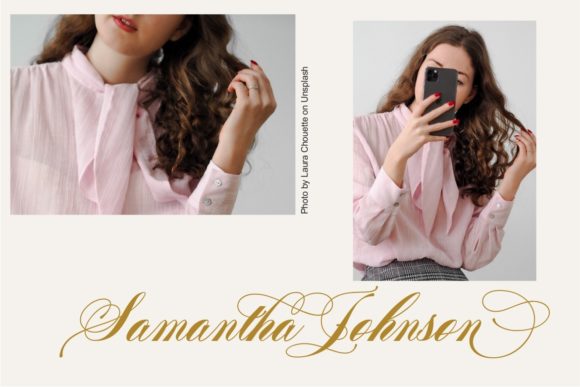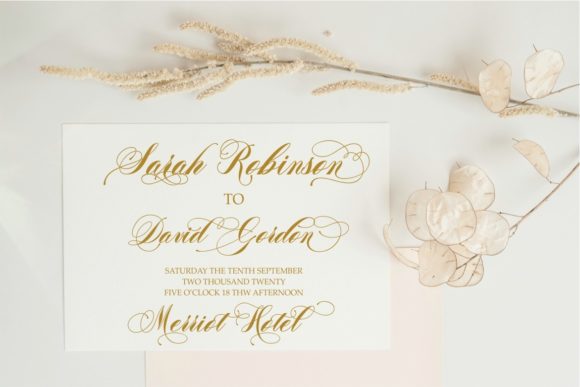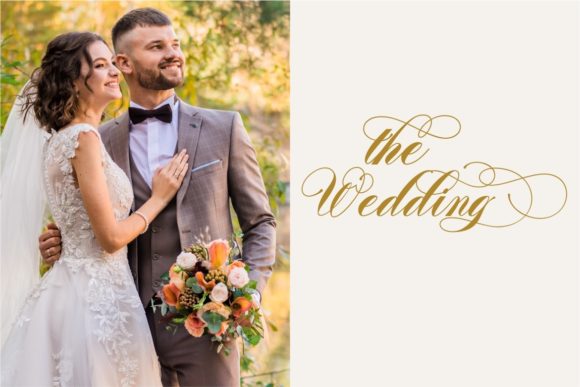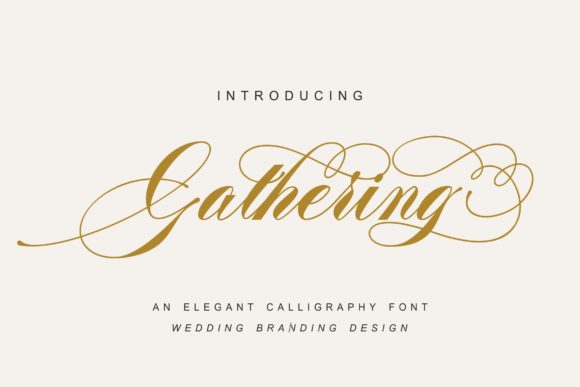
Gathering Font: Elevate Your Designs with Modern Calligraphy Elegance
Are you searching for a font that exudes elegance and sophistication for your designs? Look no further than the Gathering Font, a stunning modern calligraphy script that’s perfect for those who crave style and refinement. This beautiful font is particularly well-suited for wedding invitations, save the date cards, and feminine branding, making it a must-have for designers and crafters.
What Makes Gathering Font Special?
Gathering Font is a modern calligraphy script that boasts a unique blend of classic elegance and contemporary flair. Its flowing lines, intricate details, and beautiful ligatures make it a standout in the world of typography. Whether you’re designing wedding invitations, branding materials, or social media graphics, this font is sure to elevate your work and leave a lasting impression.
Key Features of Gathering Font
- PUA Encoding: Gathering Font is PUA (Private Use Area) encoded, which means you can access all the amazing glyphs and ligatures with ease. This feature makes it simple to use the font’s many swashes, alternates, and other special characters.
- Elegant Script: The font’s modern calligraphy style is perfect for creating elegant and sophisticated designs. Its flowing lines and intricate details make it ideal for wedding invitations, save the date cards, and other formal events.
- Feminine Touch: Gathering Font has a distinctly feminine flair, making it perfect for branding and marketing materials targeting women or feminine-oriented businesses.
- Versatile: This font is versatile and can be used for a wide range of design projects, from digital graphics to print materials.
Perfect for Wedding and Event Designers
Wedding invitation designers, save the date card creators, and event planners will love Gathering Font for its elegant and sophisticated style. This font is perfect for:
- Wedding invitations and save the date cards
- Wedding stationery and accessories
- Event branding and marketing materials
- Formal event invitations and programs
Tips for Using Gathering Font
To get the most out of Gathering Font, here are some tips:
- Pair with Simple Fonts: Pair Gathering Font with simple, clean fonts to create a beautiful contrast and make your designs stand out.
- Experiment with Ligatures: Take advantage of the font’s ligatures and glyphs to add unique touches to your designs.
- Use for Headlines and Titles: Use Gathering Font for headlines and titles to add a touch of elegance and sophistication.
Why Designers and Crafters Love Gathering Font
Designers and crafters love Gathering Font for its:
- Elegance: The font’s modern calligraphy style adds a touch of elegance and sophistication to any design.
- Versatility: Gathering Font can be used for a wide range of design projects, from digital graphics to print materials.
- Easy to Use: The font’s PUA encoding makes it easy to access all the glyphs and ligatures, making it simple to use and incorporate into designs.
In conclusion, Gathering Font is a stunning modern calligraphy script that’s perfect for designers and crafters looking to add a touch of elegance and sophistication to their work. With its PUA encoding, elegant script, and feminine touch, this font is sure to become a favorite in your design arsenal.